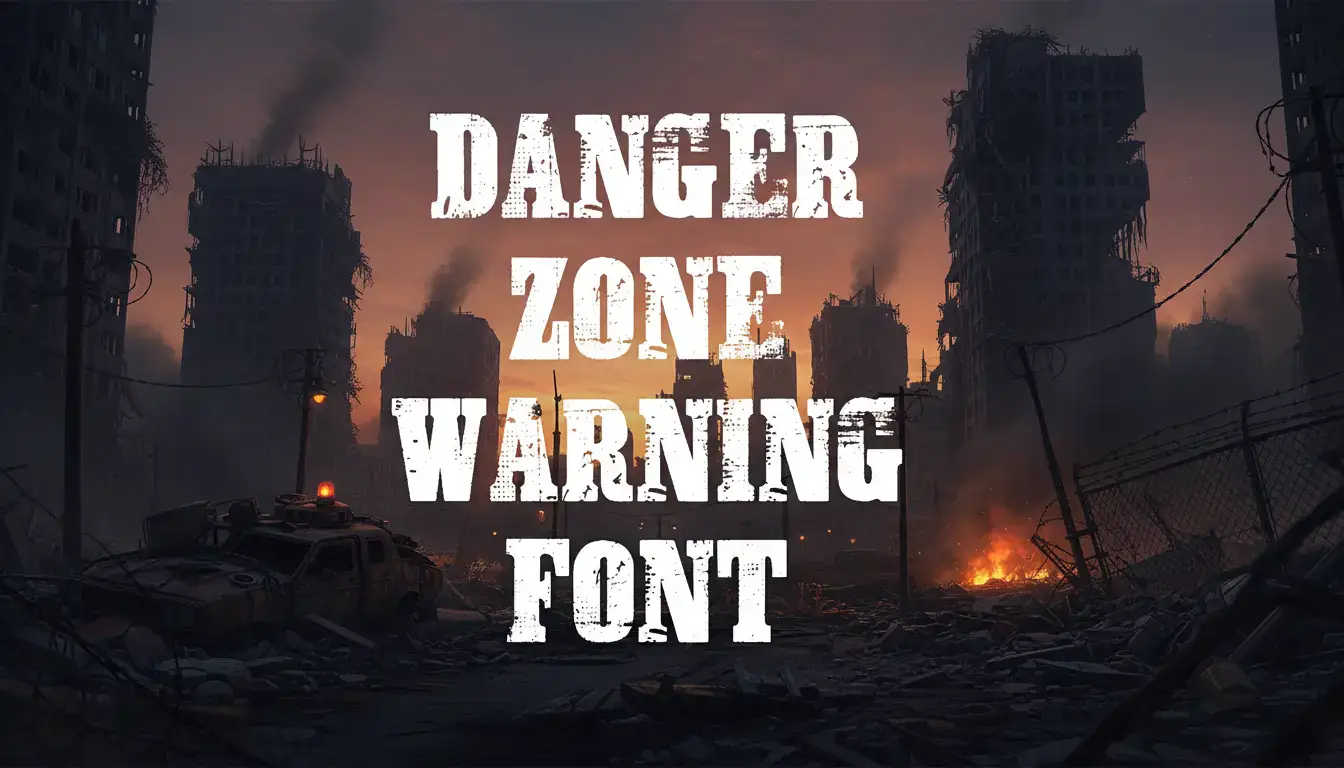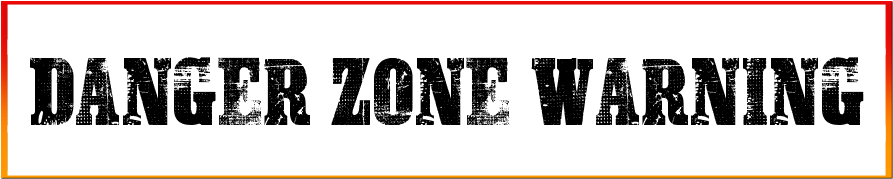
Danger Zone Warning Font
Danger Zone Warning Font Preview
Danger Zone Warning
Danger Zone Warning Character Map
Danger Zone Warning is a fancy font made by IMAGEX. It's a decorative display font with plenty of personality, made to grab attention. It's a free download, and you can try it with your own text in the preview above first.
- Designer: IMAGEX
What You Can Type With Danger Zone Warning
Danger Zone Warning covers the full alphabet in upper and lowercase, plus all ten numbers, so you can set names, dates and prices without switching fonts. Everyday marks like &, !, ? and @ are there too. Thanks to its accented letters, it also works for Spanish, French, German, Portuguese and Italian, not just English.
Where Danger Zone Warning Works Best
Think of Danger Zone Warning for posters, logos and eye-catching headlines. Use it for one standout word or headline and let simpler fonts handle the rest.
Does Danger Zone Warning support accented letters?
Yes. Danger Zone Warning includes the accented letters needed for Spanish, French, German, Portuguese and Italian, so it works for more than just English.